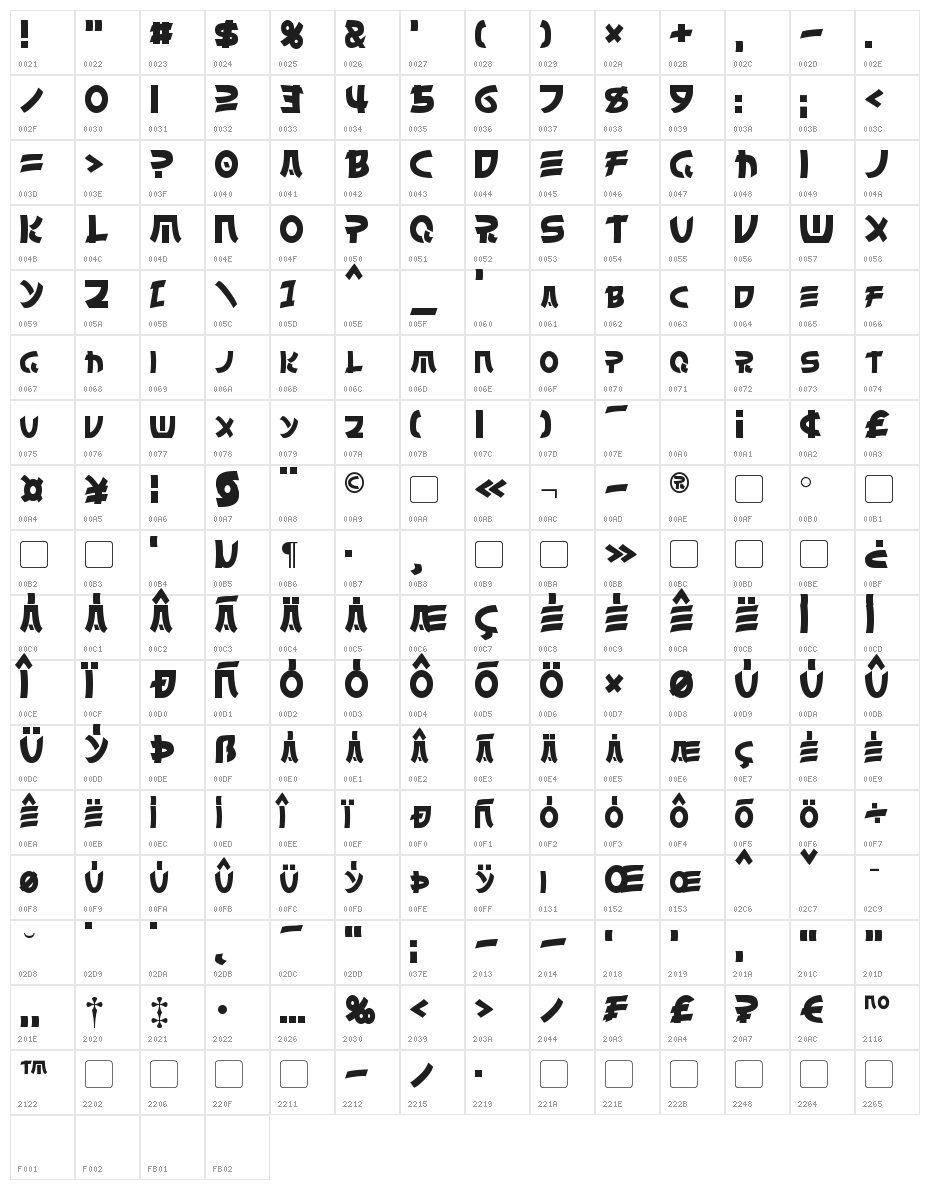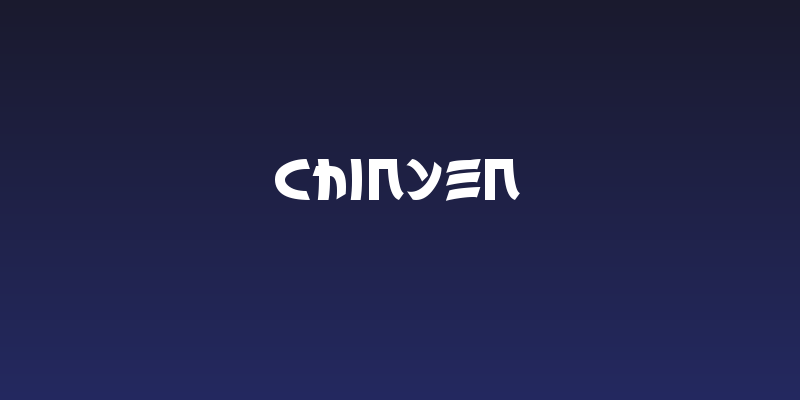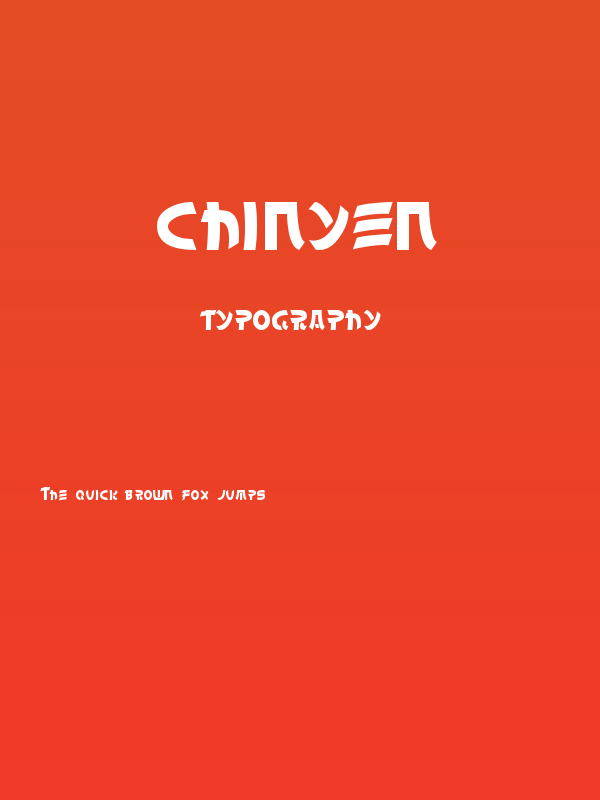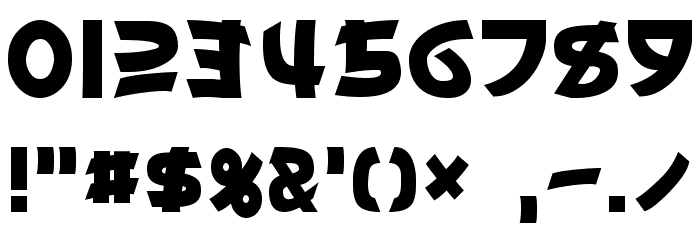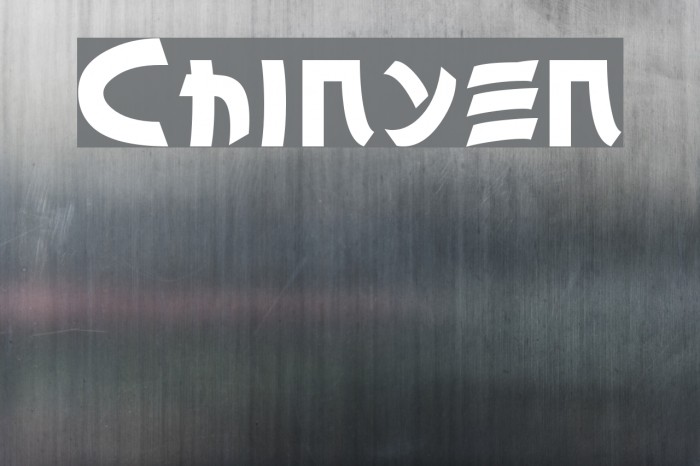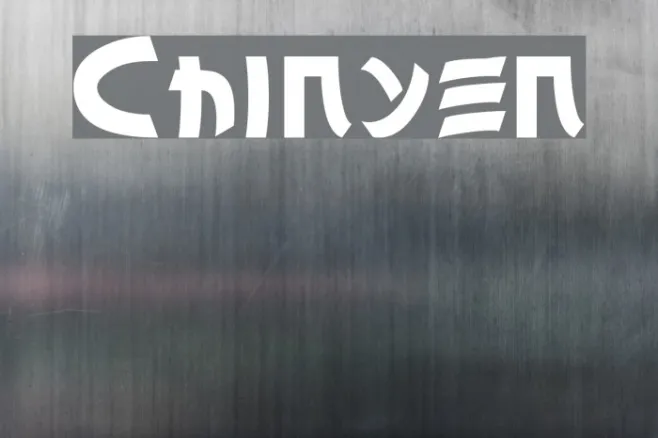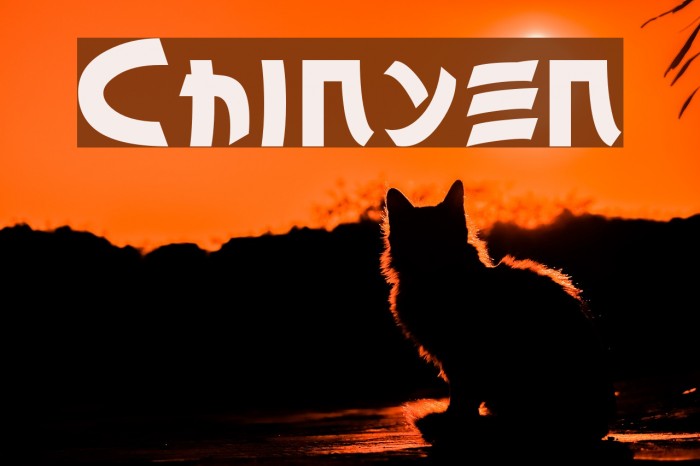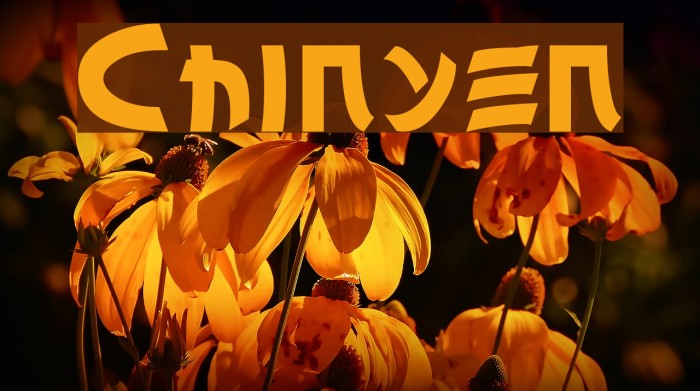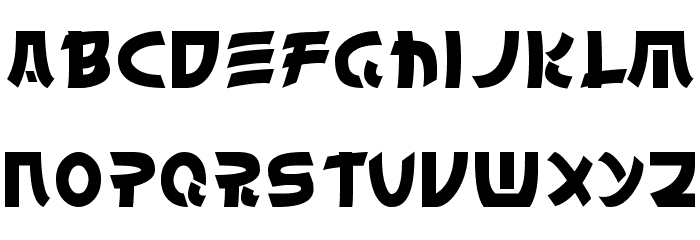
Chinyen Font
Chinyen Description
This font features a bold and dynamic style with a strong presence. The characters are uniquely designed with a combination of sharp angles and smooth curves, creating a sense of movement and energy. The uppercase and lowercase letters maintain a consistent style, with each character exhibiting a distinct personality. The numbers and special characters follow the same bold and expressive design, making them stand out. This font is ideal for projects that require a striking and memorable visual impact.
| Proposed Projects | Ideal for posters, logos, branding, and any design requiring a bold statement. |